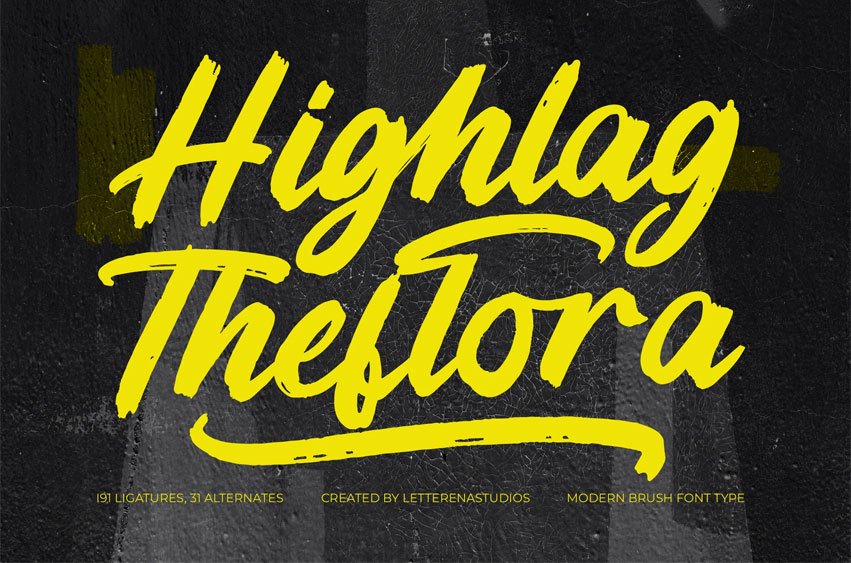
Highlag Theflora Font
Highlag Theflora Font is suitable to complement your digital and printed creative products.
This font is perfect for posters, social media posts, branding, personal projects, etc.